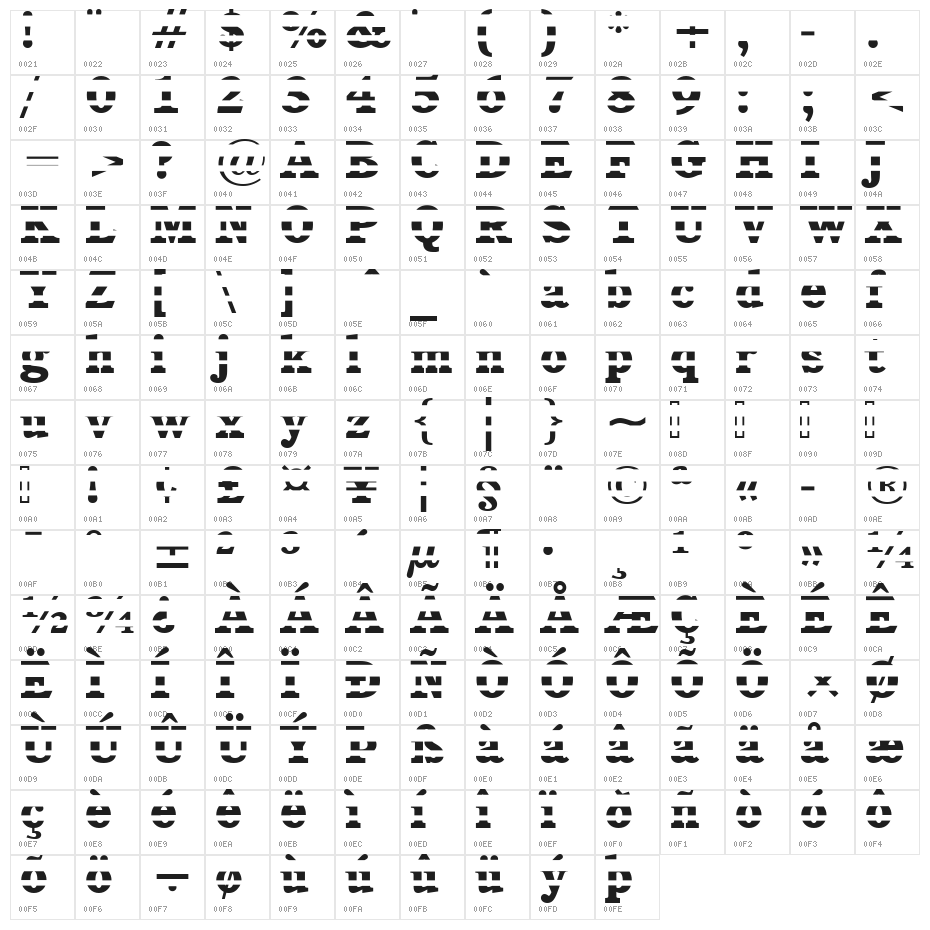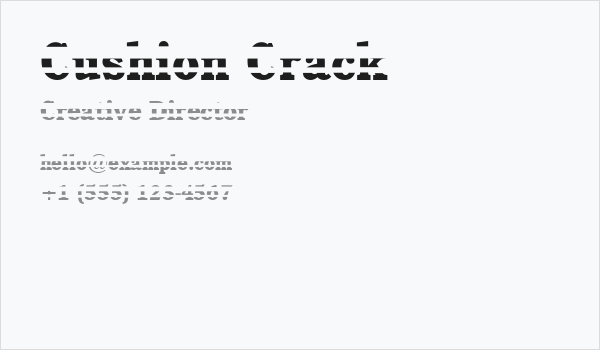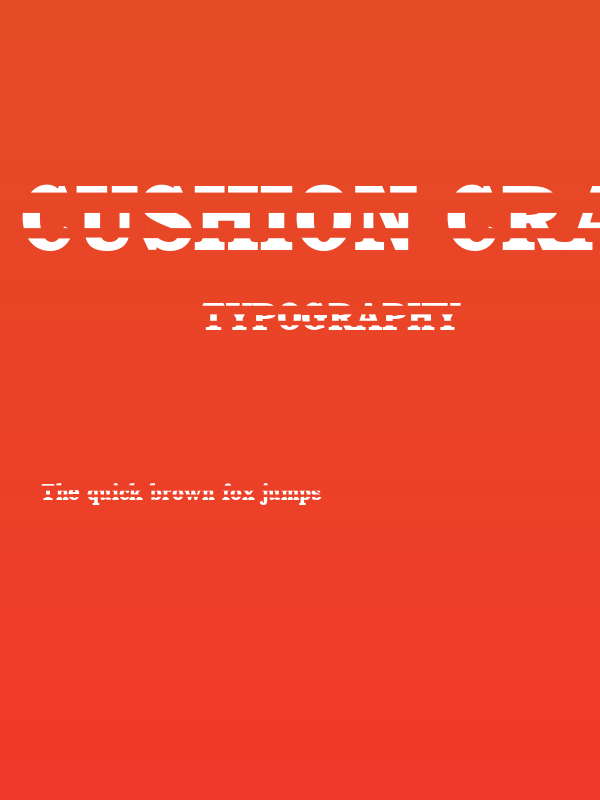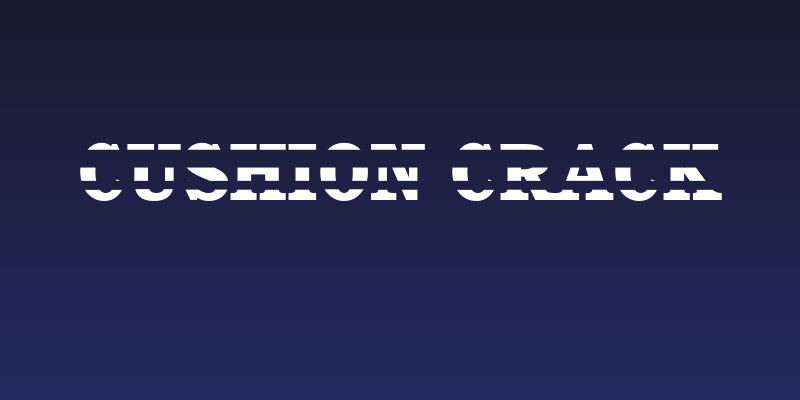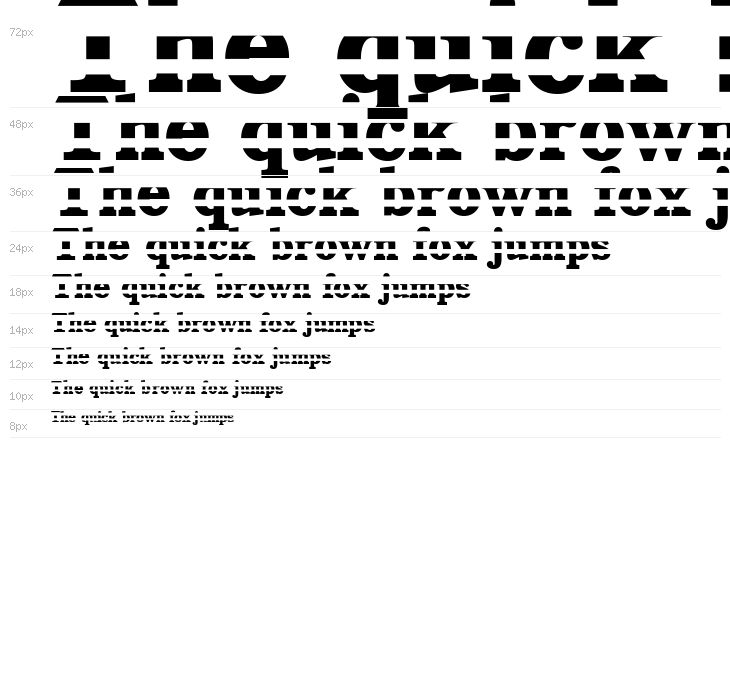
Cushion Crack Font
Cushion Crack Description
This font features a bold and impactful design with a unique distressed effect, giving it a cracked or fragmented appearance. The characters are robust and heavy, making them stand out with a strong presence. The uppercase and lowercase letters maintain a consistent style, with sharp edges and a slightly condensed form. The numbers and special characters follow the same aesthetic, ensuring uniformity across all glyphs. This font's distinctive style is perfect for projects that require a bold statement or an edgy, modern look.
| Proposed Projects | Ideal for posters, album covers, branding materials, and any design needing a bold, edgy look. |